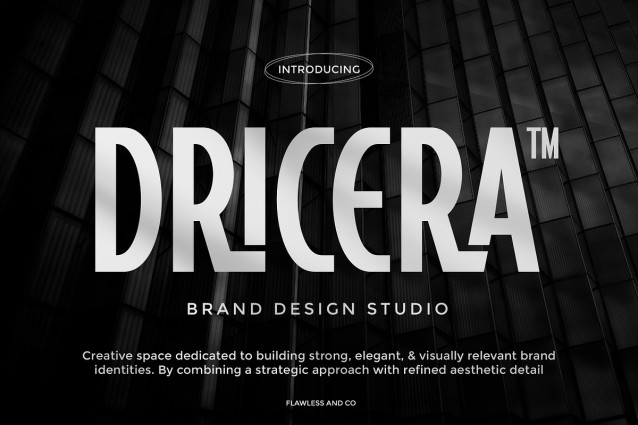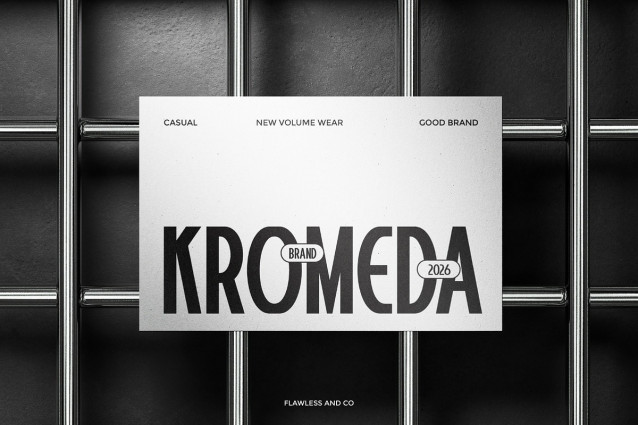
Kranezi Font
Kranezi Font is a modern condensed sans serif font crafted to deliver a sleek, bold, and contemporary typographic look. With its narrow proportions and clean geometric structure, Kranezi creates a strong visual presence while maintaining excellent readability. Designed with a minimalist approach, this font is perfect for designs that require a compact yet impactful typeface. Its condensed style makes it especially effective for headlines, branding, and layouts where space efficiency and visual clarity are important.